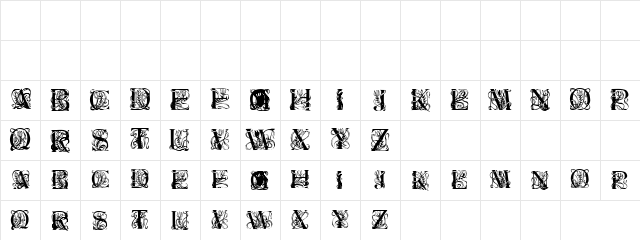
Celtic Forest Regular
Design Context for Celtic Forest Typeface
Celtic Forest is a composed and adaptable typeface that performs quietly and consistently across a wide range of design contexts.